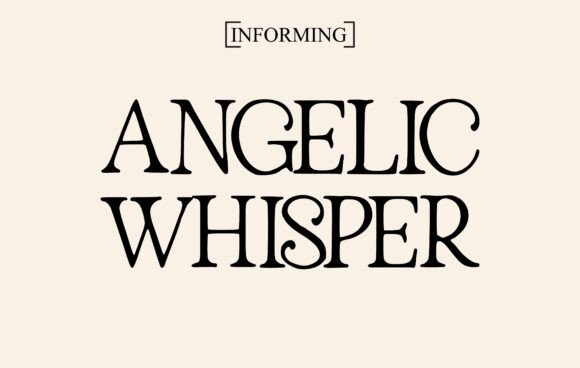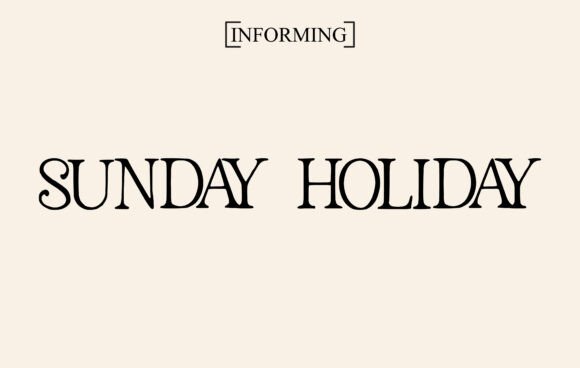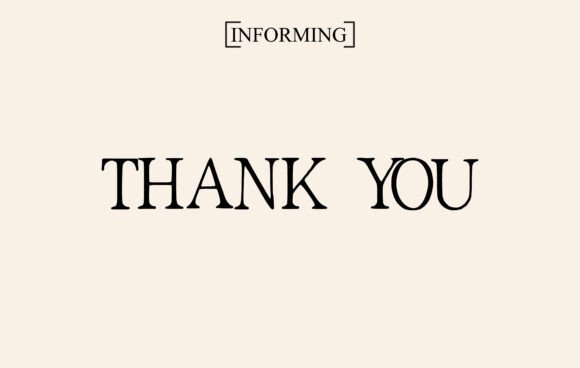
Angelic Whisper Font
About the Angelic Whisper Font
Get ready to be inspired by Angelic Whisper Font, a fresh and dynamic typeface for modern creators. This font is designed to be a true favorite and it has the potential to take your creative ideas to the highest level
Angelic Whisper’s elegant and slightly whimsical style makes it ideal for headlines, branding projects requiring a touch of sophistication, and short-form text on packaging or invitations. Its delicate letterforms, however, aren’t well-suited for body text or UI elements where high legibility over long stretches is crucial.
For optimal impact, pair Angelic Whisper with a clean sans-serif like Open Sans for body copy or a geometric sans-serif like Futura for a more modern feel. Alternatively, a classic serif like Garamond can create a timeless and refined pairing, enhancing its inherent grace.
The font’s overall personality is refined and slightly playful, making it a strong choice for brands focusing on beauty, fashion, or luxury goods. Avoid using it for projects demanding a bold, aggressive, or overtly minimalist aesthetic.
Angelic Whisper Font Usage Examples
Angelic Whisper Font Example